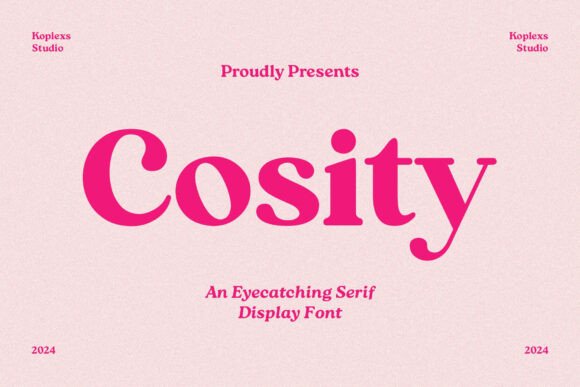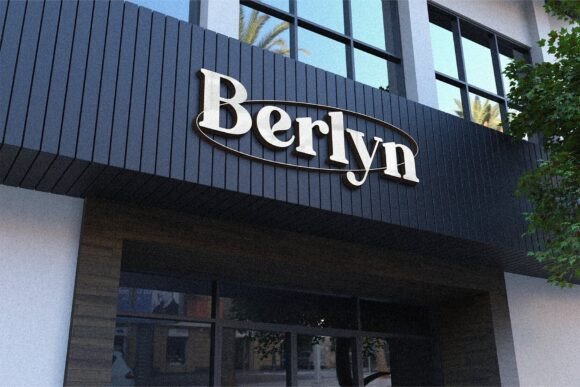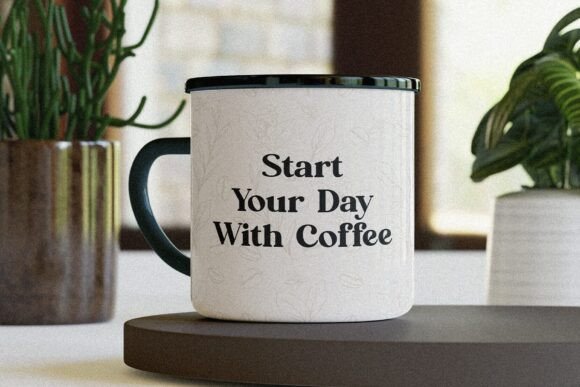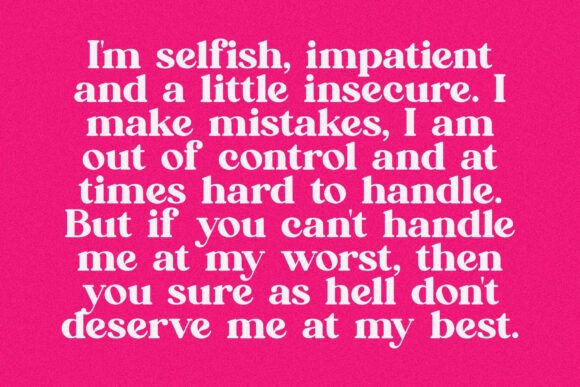
Cosity Font: Modern & Elegant Serif for Inspiring Logo Design
About the Cosity Font
Meet Cosity Font, a stunning font that brings a touch of elegance and professionalism to any design. Cosity is a sophisticated Display Serif Font that exudes elegance and modernity. Perfect for projects that demand a touch of class, Cosity offers two versatile styles: Regular and Italic, making it a fantastic choice for various design needs.
Cosity excels in headline applications, branding projects requiring a touch of sophistication, and short-form text within posters or invitations. Its elegant serifs lend themselves well to luxury goods packaging or high-end publication design. However, its display nature makes it unsuitable for body text or lengthy paragraphs, and its refined aesthetic might clash with playful or informal designs. Avoid using it in user interfaces where readability at small sizes is paramount.
Pairing Cosity effectively requires consideration of its inherent elegance. A clean sans-serif like Open Sans or Lato provides a strong contrast and excellent readability for supporting text. For a more luxurious feel, consider pairing it with a delicate script font such as Great Vibes for added flourish in smaller elements. Conversely, a geometric sans-serif such as Futura can offer a modern counterpoint, creating a balanced, sophisticated feel.
Cosity projects an overall personality of refined elegance and modern sophistication. Its subtle details and classic serif structure convey a sense of trustworthiness and high quality, making it ideal for brands seeking to communicate prestige and authority.
Cosity Font Usage Examples